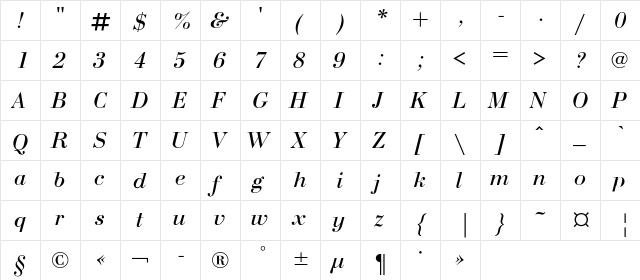
BodoniC Italic Font Preview
BodoniC Italic
Design Context for BodoniC Typeface
BodoniC takes a measured approach to typography — its balanced proportions and neutral character make it a reliable workhorse for both digital and print work. The slanted form adds forward momentum and visual energy.